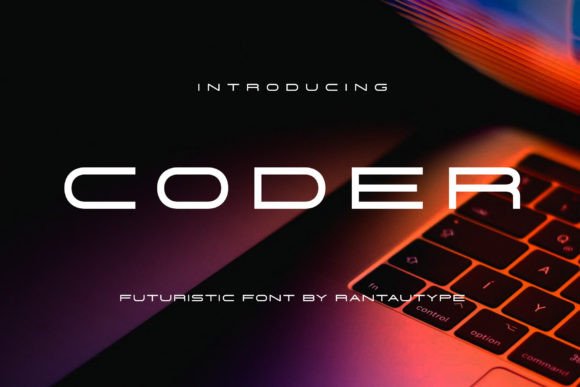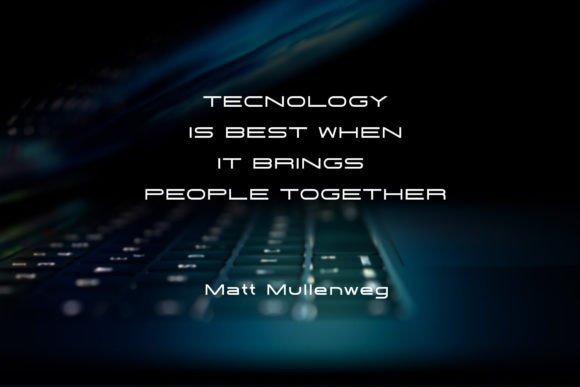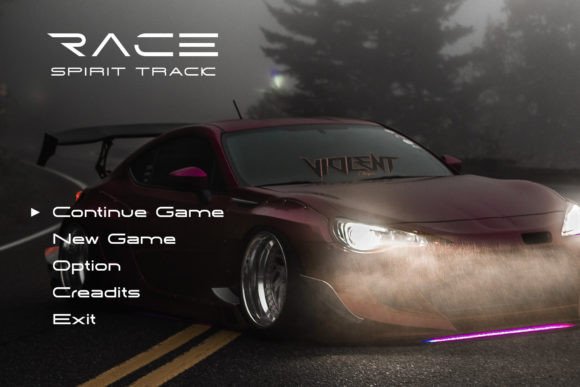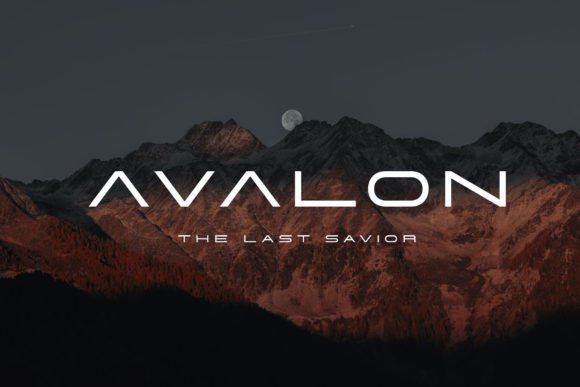
Coder Font: Modern Sans Serif for Tech & Logo Design
About the Coder Font
Add a touch of class to your work with the Coder Font, a truly exceptional typeface. Coder is a sleek and futuristic sans-serif font with a wide, geometric design. Its clean lines and sharp edges exude a sense of modernity and sophistication, making it ideal for tech-related projects, branding, and contemporary designs that require a bold and professional aesthetic.
Coder Font excels in headlines, logos, and short-form text within tech-focused branding and marketing materials. Its strong geometric forms also make it suitable for posters and signage requiring a modern and impactful presence. However, its wide letterforms and lack of x-height make it less effective for body copy or extended reading. Avoid using it for UI elements, especially smaller text sizes.
Pairing Coder with a clean, neutral sans-serif like Open Sans for body text creates a balanced and legible combination. For a more contrasting approach, consider pairing it with a classic serif typeface like Garamond for a sophisticated juxtaposition of modern and traditional styles. A script font like Great Vibes would be suitable for secondary text elements needing a touch of elegance.
Coder’s overall personality is bold, modern, and assertive. It projects confidence and technological prowess, making it ideal for brands and projects aiming for a sophisticated, futuristic feel.